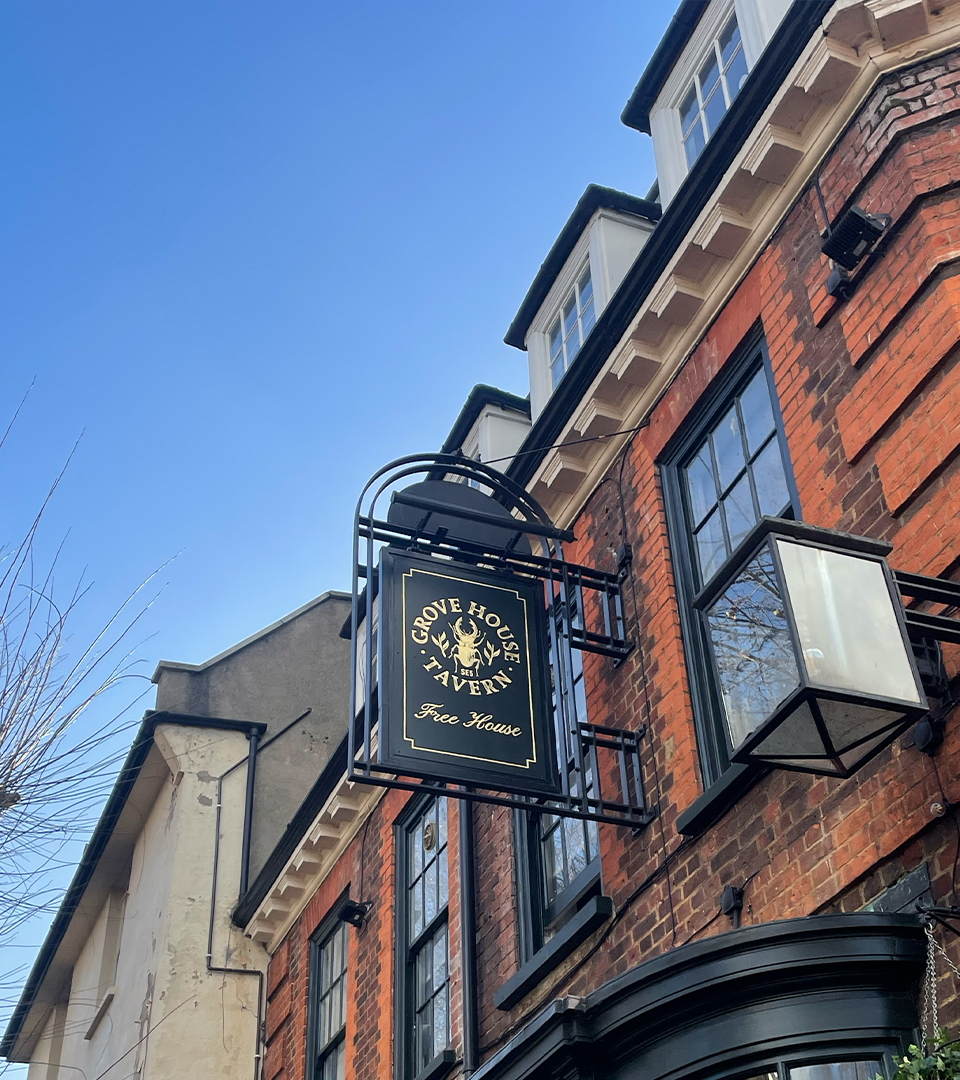
For my typeface I explored history, tradition and modern society and created a typeface that represented both styles into one. grove house tavern kept its traditional style in a modern society and I wanted to explore this in my typeface by combining both elements visually together. I wanted to equally represent old and new together to homage its history and style, as grove house tavern feels stuck in time whilst everything else has moved on and been modernised. This is a display typeface that would be mainly used for titles.